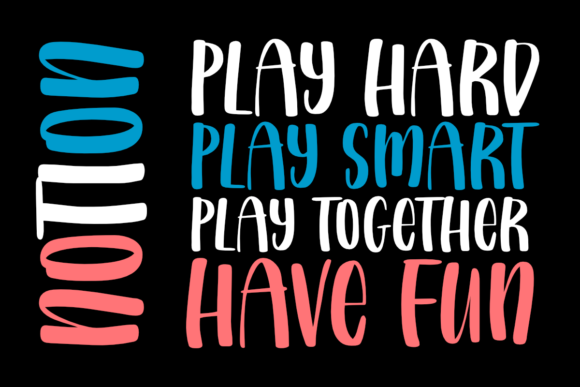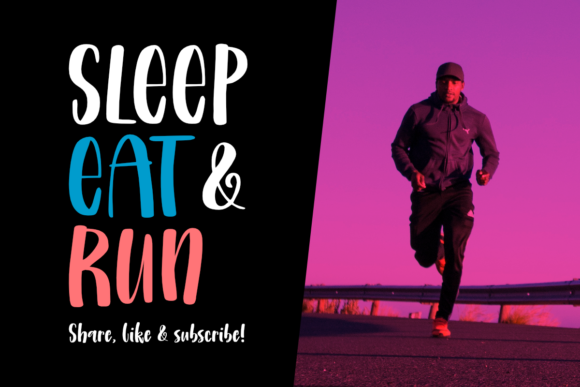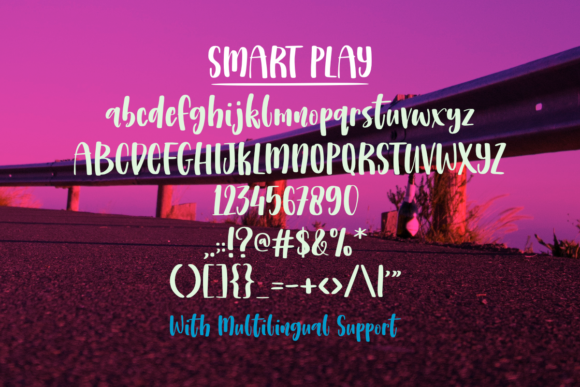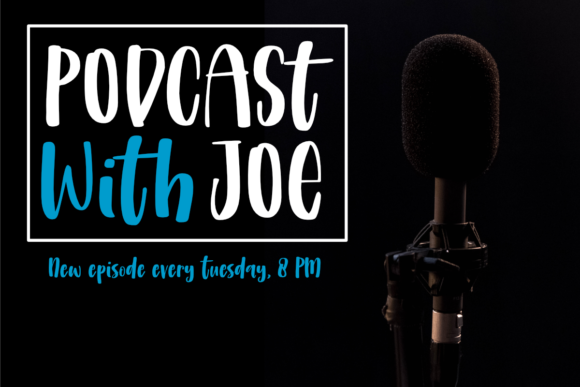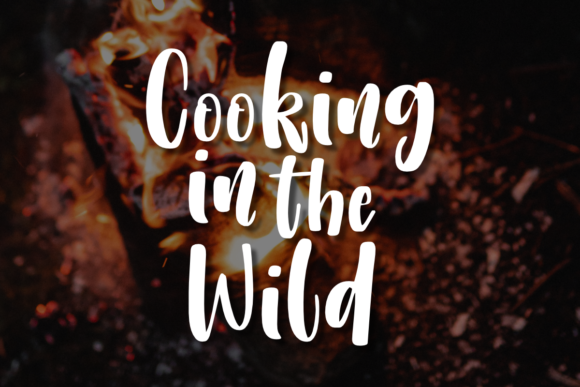
Introduction to Smart Play Font
Smart Play is a cute and playful handwritten font, perfect for your most creative projects and designs.
Its characters are bold and very easy to read, so feel free to add this font to big or small text – it will look incredible anyway .
Smart Play Font offers exceptional quality and versatility, making it a valuable addition to your design toolkit. Whether you’re creating for personal projects or commercial use, Smart Play Font delivers professional results.